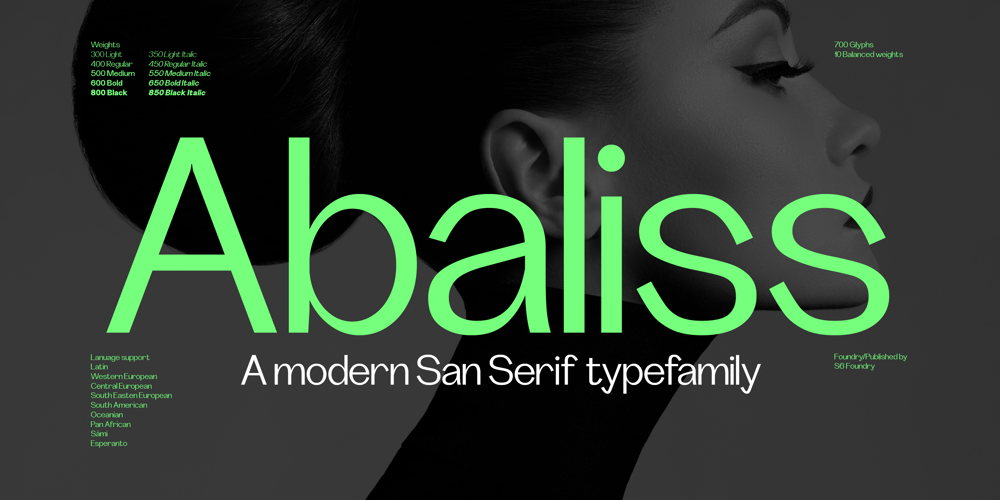
Abaliss Sans Font Family was designed by Paul Henry Robb and published by S6 Foundry. Abaliss Sans contains 10 styles and family package options. Abaliss Sans is a contemporary typeface with strong stylistic geometric contrasts representing the shifting contemporary aesthetics. Its distinctive stance and wide-open counters allow the right visual consistency for branding and communications projects.